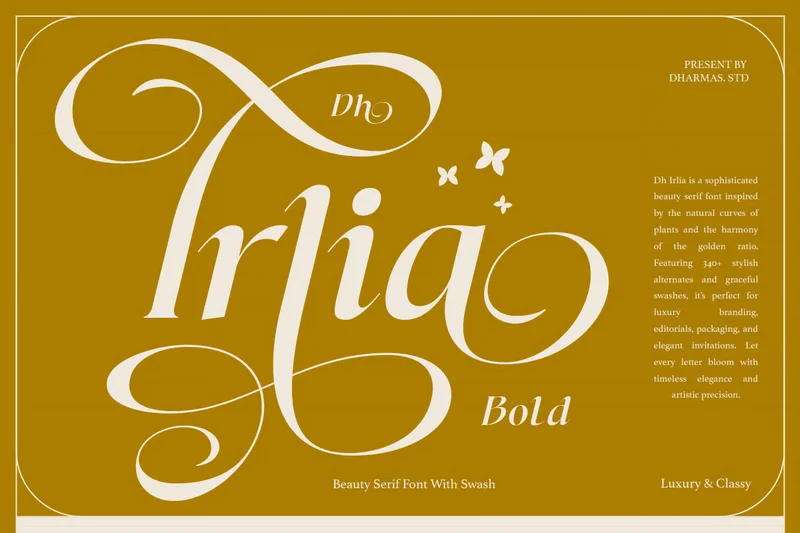
Minimal Bold Serif – Irlia
Irlia Minimal Bold Serif typeface designed to command attention with striking elegance. With its dramatic swashes, confident strokes, and timeless serif structure, this style delivers a strong visual impact while maintaining refined sophistication. This version includes only the Bold style, offering the most powerful and expressive weight within the Irlia family.
105+ Swash Alternates